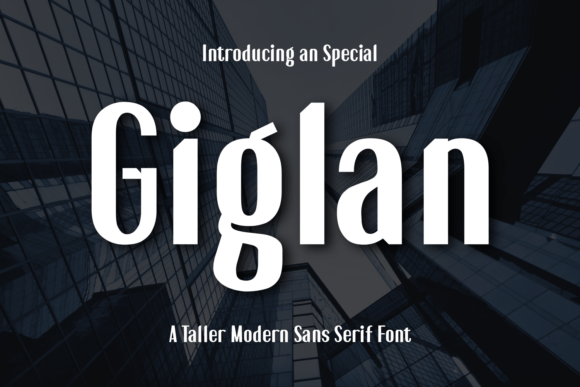
Assert Your Creative Vision with the Unrivaled Power of Gilgan Font
In the realm of typography, a font can make or break the visual identity of a brand. With the emergence of Gilgan, a modern typography titan, designers and marketers can now assert their creative vision with unparalleled potency and contemporary precision. Gilgan is not just a font; it’s an instrument of aesthetic excellence, tailored to create visual authority and communicate messages with impact.
Unleashing the Power of Gilgan
Gilgan gracefully fuses boldness and stature, crafting an irresistible attraction for attention across various designs. Its unique blend of modern sans-serif style and clean, straightforward design makes it an ideal choice for designers seeking to make a statement. Whether you’re working on branding and corporate identity, slogans and taglines, or digital and print marketing, Gilgan brings the wow factor to your creations.
- Branding and Corporate Identity: Gilgan helps carve indelible impressions on your brand’s visual identity, setting you apart from the competition.
- Slogans and Taglines: With Gilgan, you can create winning slogans and taglines that capture the essence of your brand and leave a lasting impression.
- Digital and Print Marketing: Gilgan’s high-visibility guarantee makes it perfect for catchy headlines, compelling subheads, impactful article titles, and mesmerizing web content.
Practical Applications of Gilgan
Gilgan’s versatility extends to various design applications, including:
- Print Ads and Billboard Designs: Take your print ads and billboard designs to the next level with Gilgan’s compelling presence.
- Product and Packaging Design: Ensure your products stand out on store shelves with Gilgan’s visually appealing and functional design.
- User Interface Design (UI/UX): Create seamless and engaging user experiences with Gilgan’s modern sans-serif style.
The Modern Sans Serif Style of Gilgan
Gilgan embodies the perfect balance of clean, straightforward design with a contemporary twist. Its modern sans-serif style makes it an excellent choice for designers seeking a font that exudes elegance, sophistication, and aesthetic excellence. With Gilgan, you can unfold a world of strapping statements and visual appeal with every swipe of this terrific typeface.
The Gilgan font is not just a typography; it’s an attitude, a statement, and a reflection of your brand’s personality. Its ethereal balance of modernity and simplicity ensures that your designs are not only visually appealing but also highly functional.
Tips for Effective Design with Gilgan
To maximize the potential of Gilgan, consider the following design tips:
- Experiment with Font Sizes: Gilgan’s versatility allows it to shine in various font sizes, from headlines to body copy.
- Play with Colors: Gilgan’s clean design makes it an excellent choice for use with bold, vibrant colors.
- Balance and Contrast: Balance Gilgan with other design elements, and use contrast to create visual hierarchy and emphasis.
In conclusion, Gilgan font is a game-changer in the world of typography. Its unrivaled power, modern sans-serif style, and versatility make it an ideal choice for designers and marketers seeking to assert their creative vision. With Gilgan, you can create visually stunning designs that communicate your message with impact, authority, and aesthetic excellence.
Embrace the power of Gilgan and take your designs to new heights. Whether you’re working on branding, marketing, or product design, Gilgan is the perfect choice for those seeking to make a statement and leave a lasting impression.